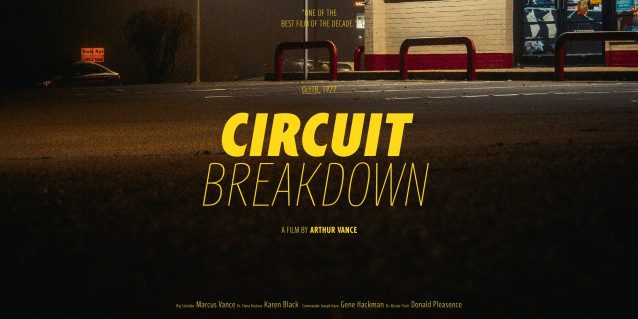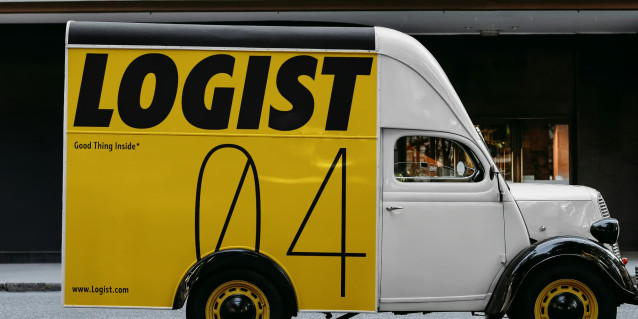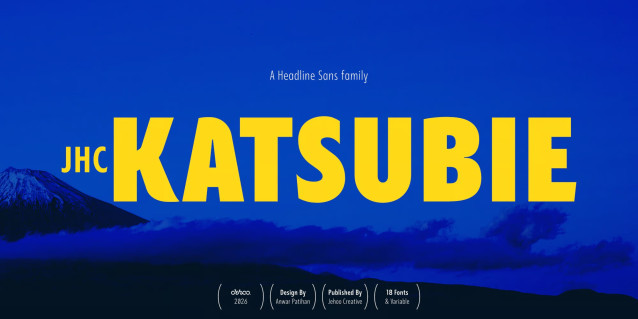
JHC Katsubie Font
JHC Katsubie is built to break the silence. Engineered with a sharp, space-saving condensed architecture and laced with expressive display accents, this typeface brings raw energy and undeniable attitude to high-impact headlines, editorial covers, posters, and bold brand identities.
The family spans 18 static styles, moving from a refined Thin all the way to a Black, with matching Italics for every weight. It also includes a unified Variable font featuring 2 axes (Weight and Italic), giving you complete freedom to fine-tune thickness and slant on the fly without cluttering your workflow.
Underneath its striking exterior lies a deeply flexible typographic toolkit. OpenType features grant total creative freedom through stylistic set ss01 (M, N, U), distinct character variants for a and u, and a standard and discretionary ligatures to build custom, expressive layouts.
Designed to communicate on a global scale, JHC Katsubie pairs its commanding presence with extensive multi-script character support, spanning Extended Latin, Cyrillic, and Greek character sets.